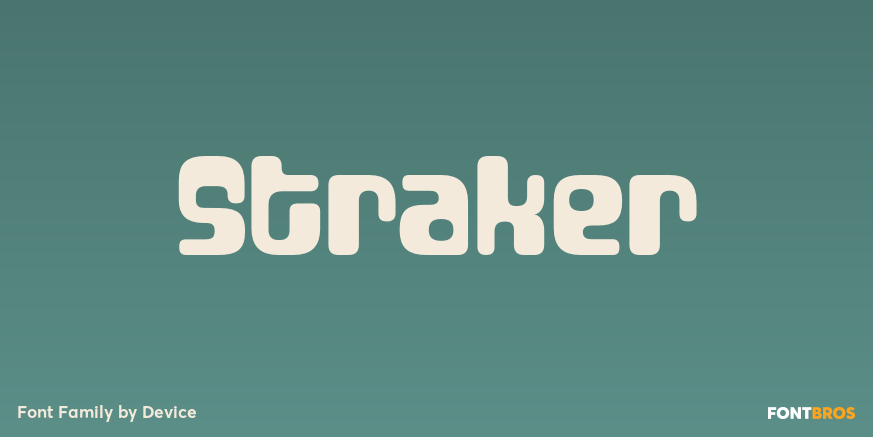
HomeFont BrosFuturisticStraker FuturisticGroovy (1966-1978) Straker FacebookXPinterestWhatsApp 1 of 1 About Straker is named after the beige Nehru-collared commander in Gerry Anderson\’s masterpiece, UFO.  DOWNLOAD ON FONT BROSThis font is sold and delivered by Font Bros. Font Canyon may earn a commission if you buy through this link. People also explored The Billvort Font Huhansky Bohemian Font Gameday Font The Melancholy Font Amature Font Friday Pop Font Ceriya Font Soft Bread Font Boho Aztec Font 267 0 TagsStrakerStraker Font Previous articleRespaceNext articleMina LEAVE A REPLY Cancel reply Comment: Please enter your comment! Name:* Please enter your name here Email:* You have entered an incorrect email address! Please enter your email address here Website: Save my name, email, and website in this browser for the next time I comment. Personal Use Free BD Spinner Personal Use Free Read more about this font Laneway Personal Use Free Read more about this font Camping Personal Use Free Read more about this font BD Algebra Personal Use Free Read more about this font BLOG Top 10 Handwritten Fonts That Elevate Your Designs Top 10 Handwritten Fonts That Will Elevate Your Designs Handwritten fonts bring a warm, personal touch to every creative project. Whether you're designing logos, invitations,... Using Fonts in Digital Marketing: Tips to Strengthen Your Brand Identity How to Cut Any Font on Cricut: Convert a Font to SVG (Free) 5 Fonts That Will Dominate Design Trends in 2026